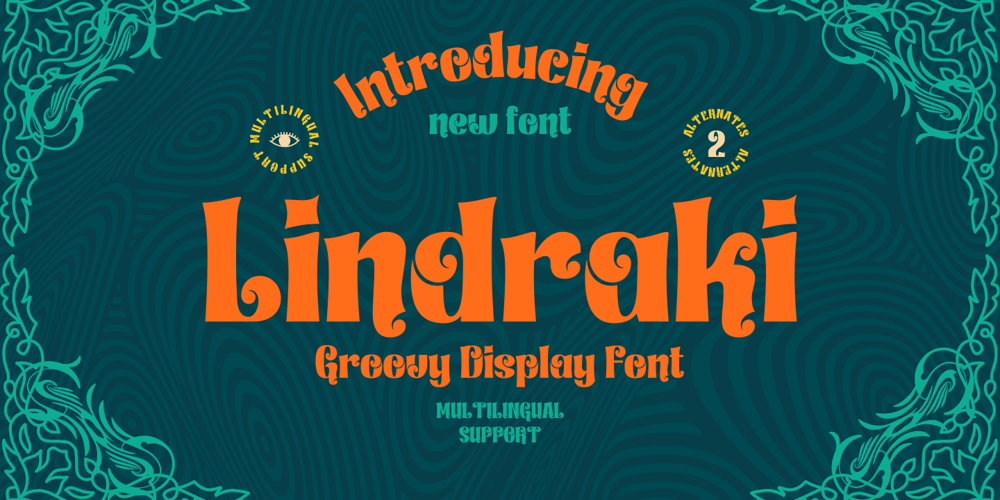
Lindraki Font Family was designed by Rozikan and published by Twinletter. Lindraki contains 1 styles and family package options. The Lindraki Groovy font is a very geometric and crooked font with high contrast between thin and bold lines and shapes. This font has an elegant and distinct style that makes it visually different from many other fonts. It makes your design stand out from the rest.This font will give a unique touch to your design. Never put off using this cool font, as it will help you give extra zest to all kinds of work.This fun font has precisely defined Curves and the subtle strokes of the typeface make this font very pleasing to the eye. So what are you waiting for? Stop procrastinating and incorporate it into your designs right away! What’s Included : Standard glyphs Iso Latin 1 Simple installations We highly recommend using a program that supports OpenType features and Glyphs panels like many Adobe apps and Corel Draw, so you can see and access all Glyph variations. PUA Encoded Characters – Fully accessible without additional design software. Fonts include Multilingual support